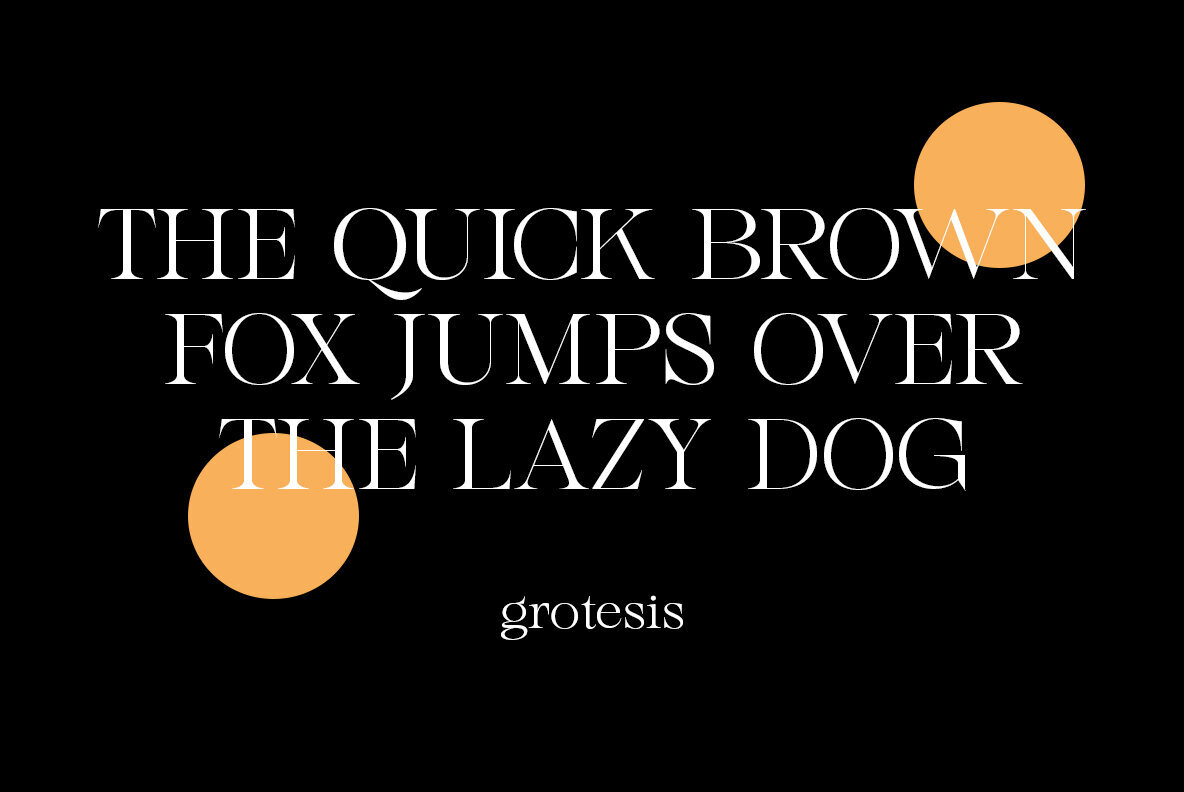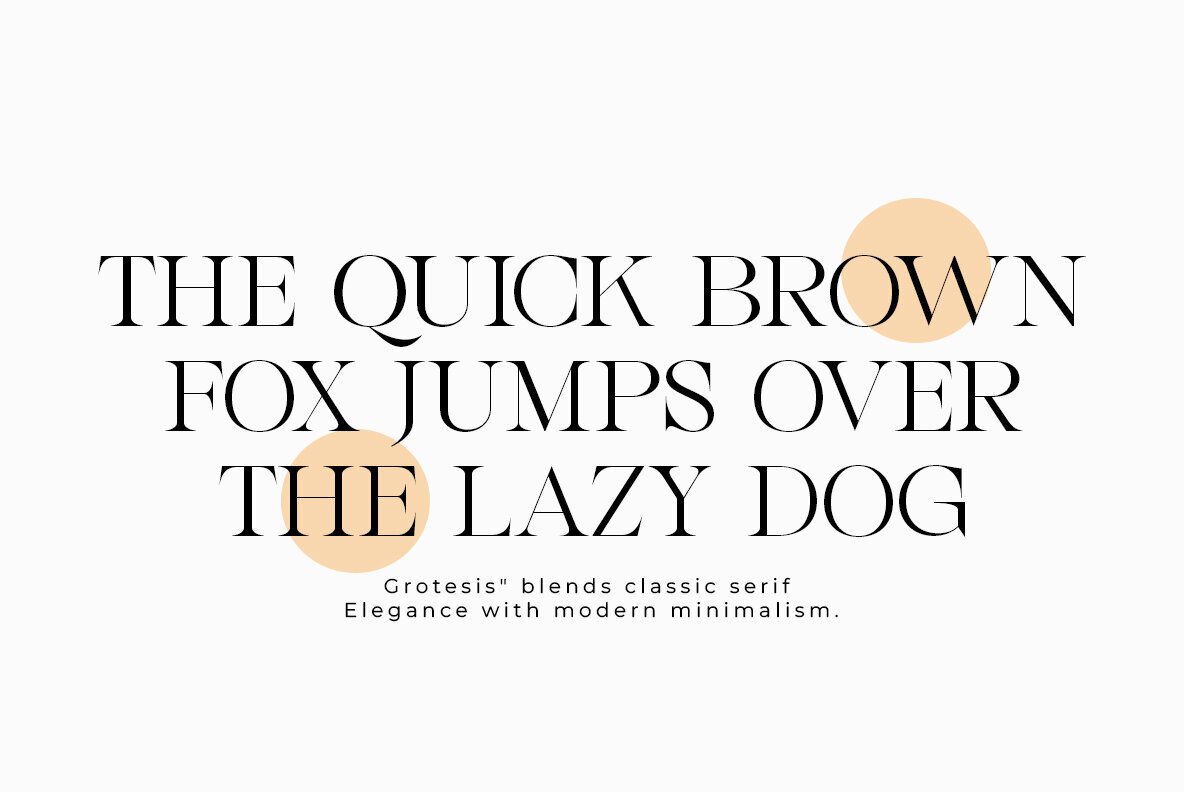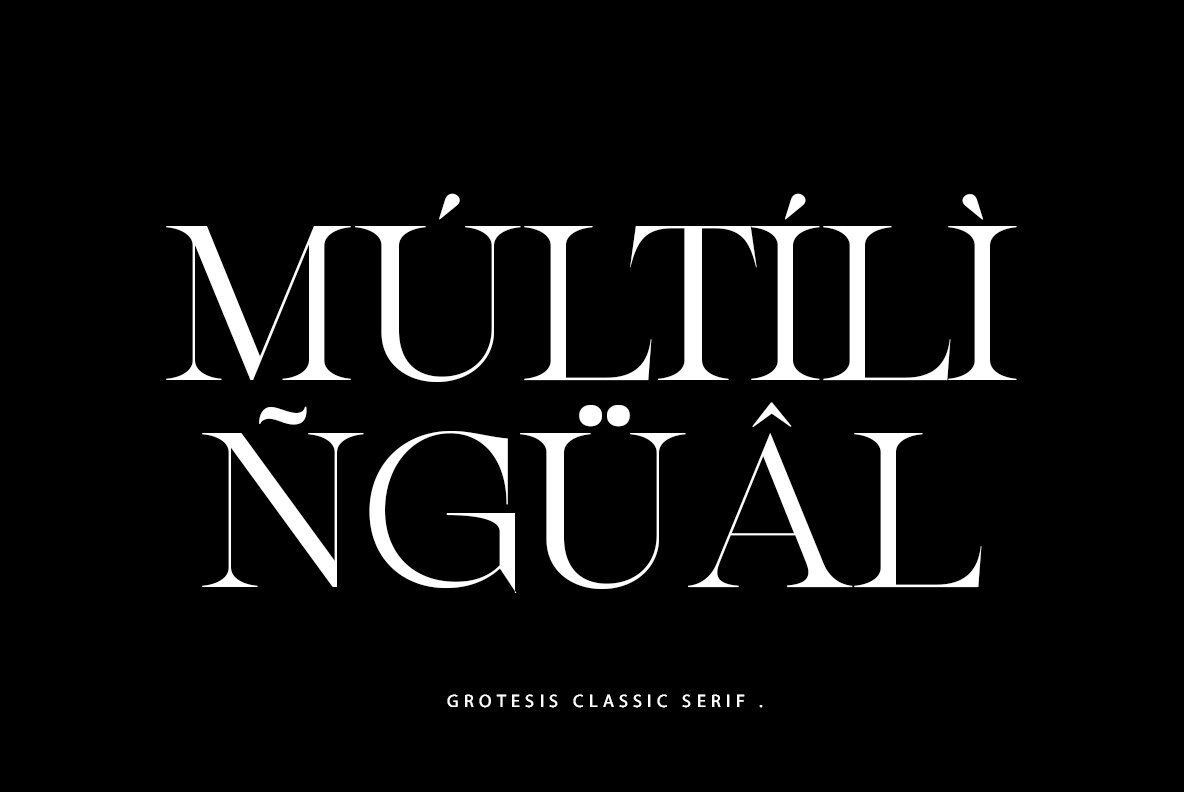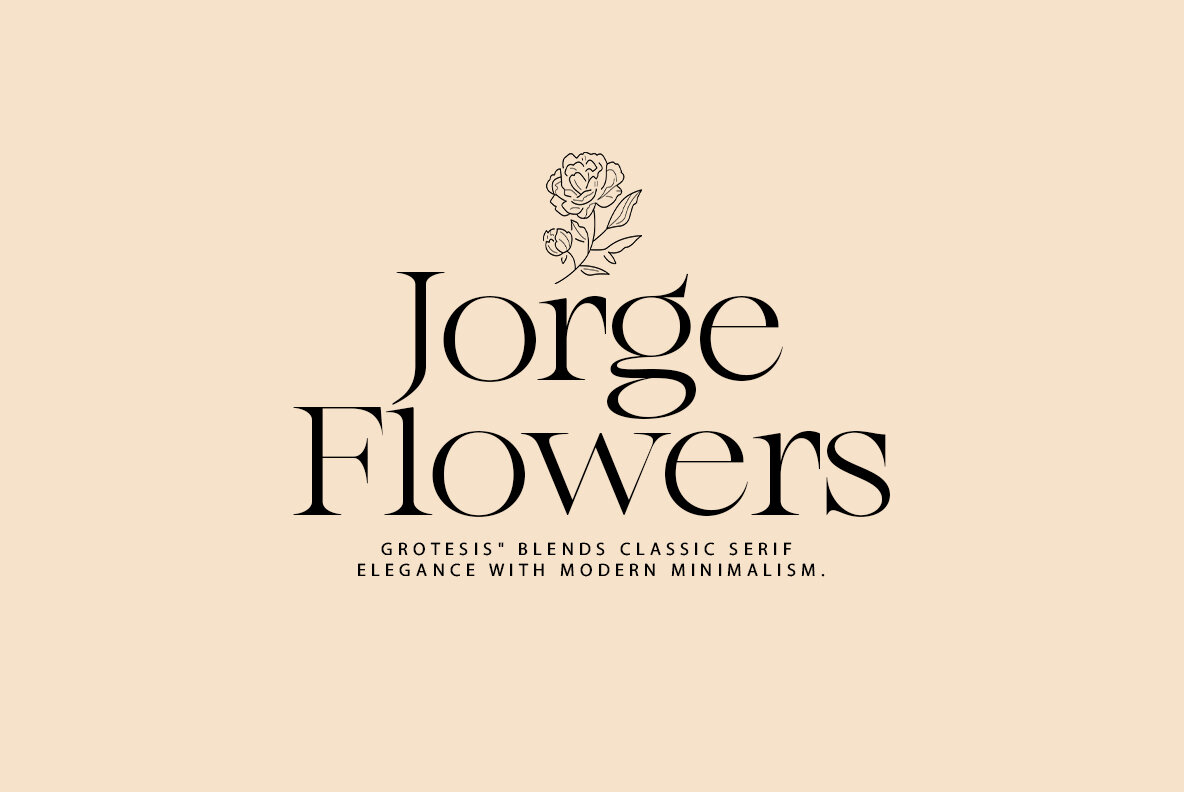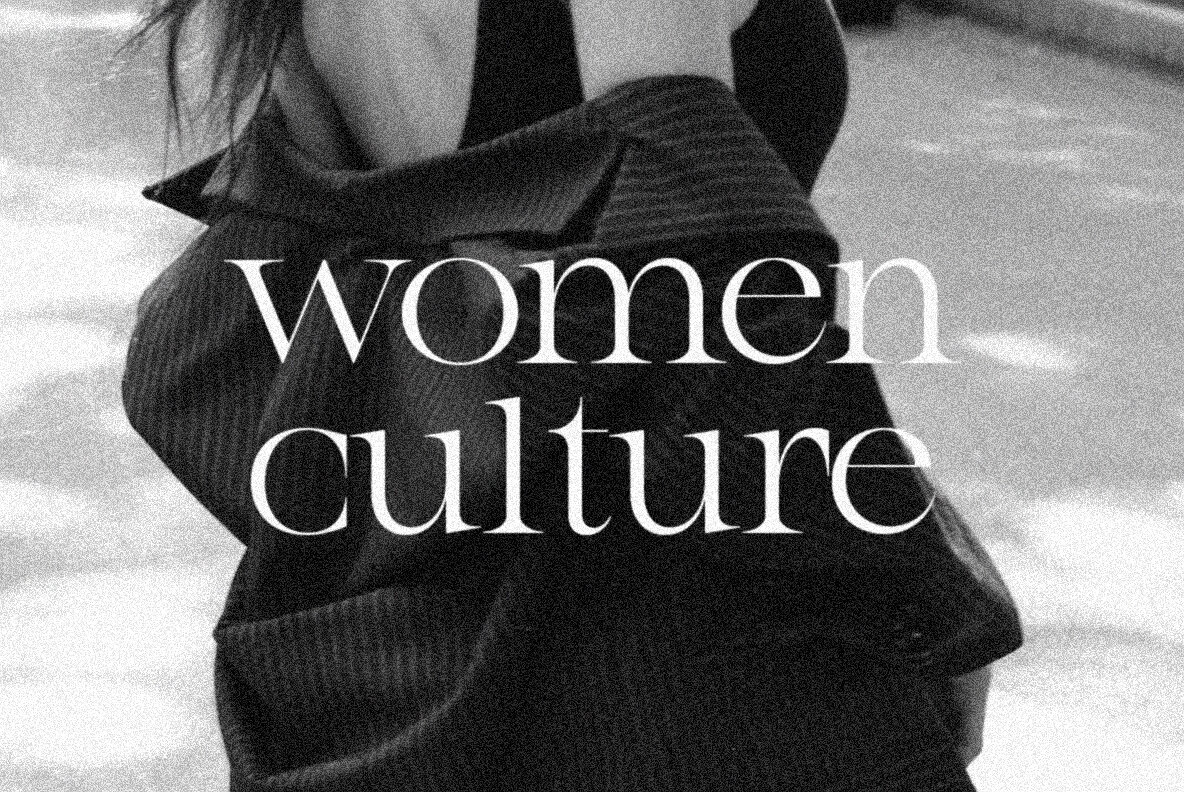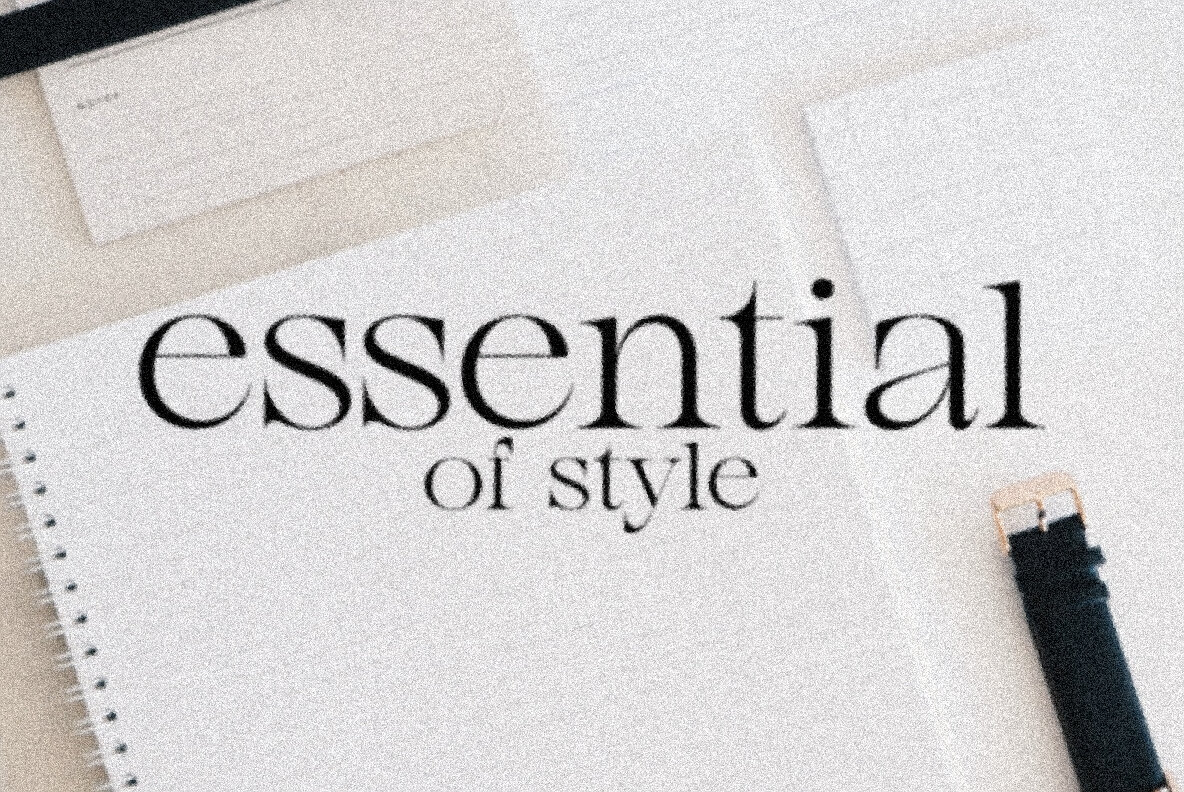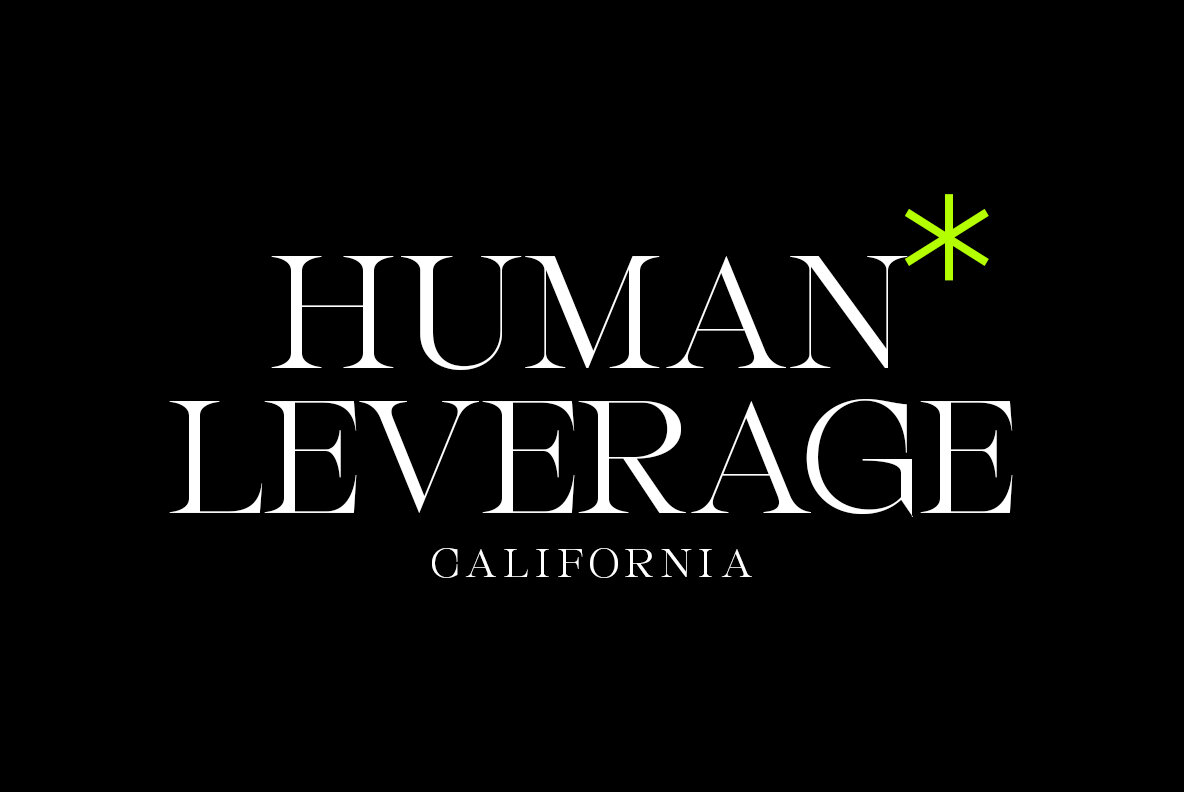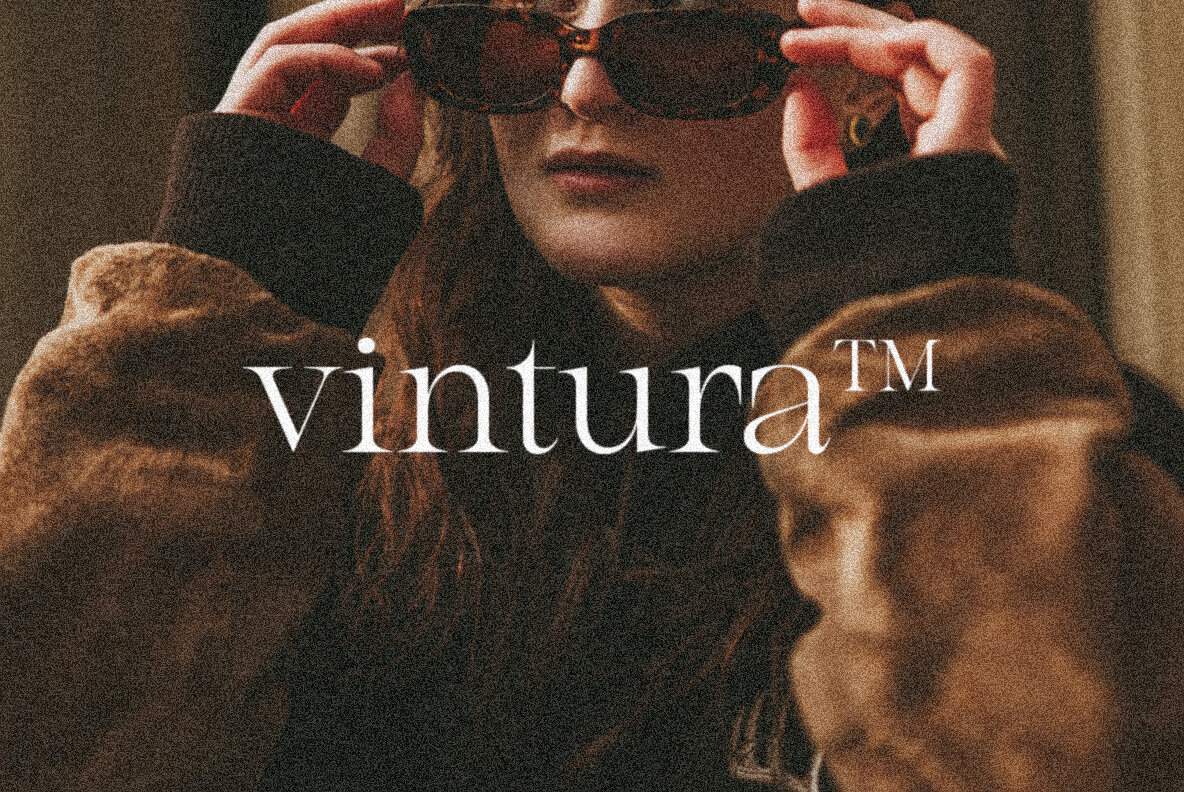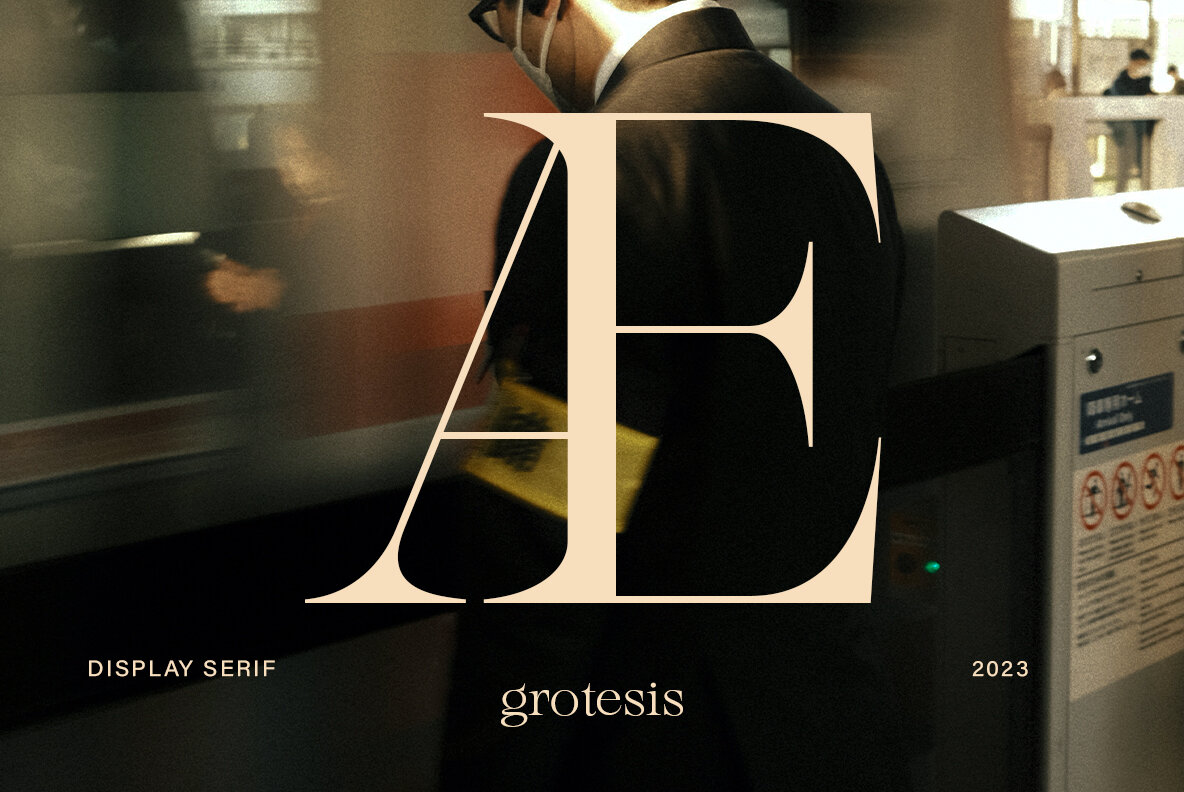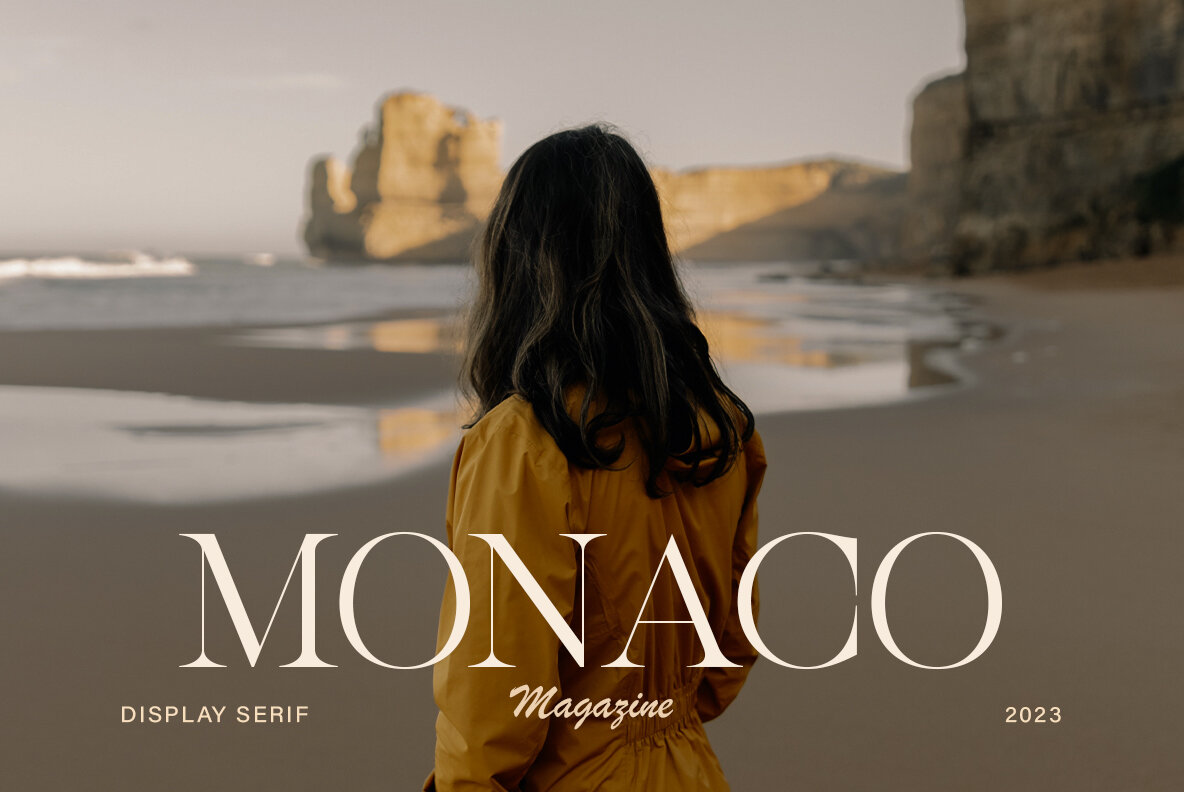
Grotesis Font
Grotesis is a modern serif typeface that beautifully blends the timeless elegance of classic serif fonts with a sleek, minimalist aesthetic. Its thin, refined letterforms offer a unique balance of sophistication and simplicity, making it an ideal choice for a wide range of design projects. Whether you're working on luxury branding, editorial layouts, fashion lookbooks, or high-end packaging, Grotesis provides a clean yet graceful look that elevates your design to a new level of professionalism. The combination of sharp edges and subtle curves creates a distinct contrast that ensures readability while maintaining a stylish appearance. Grotesis thrives in both digital and print formats, making it versatile for web design, advertisements, magazine spreads, or personal portfolios. It conveys an air of modern elegance, perfect for brands that seek to project a sense of refinement and exclusivity. Features :